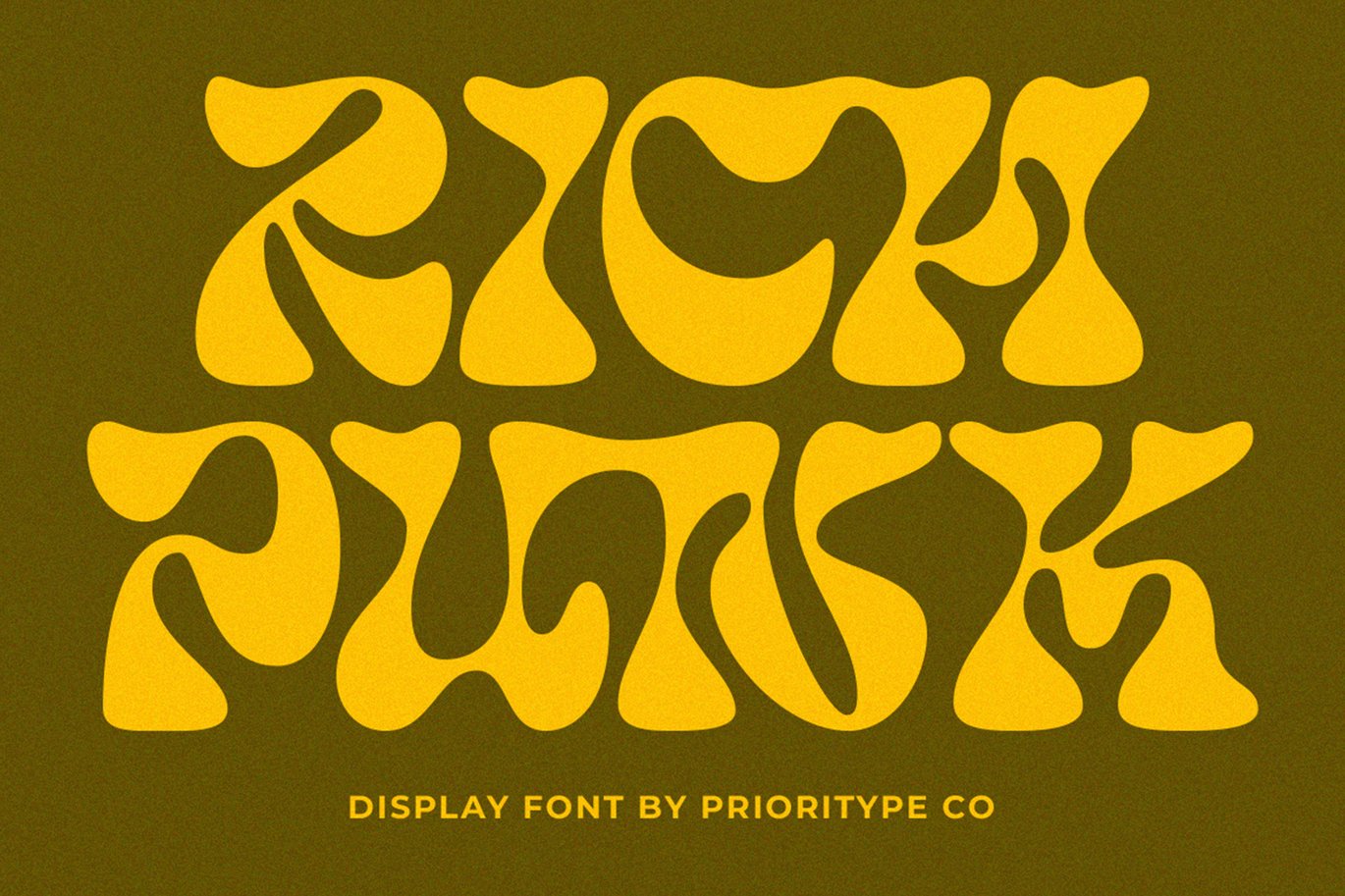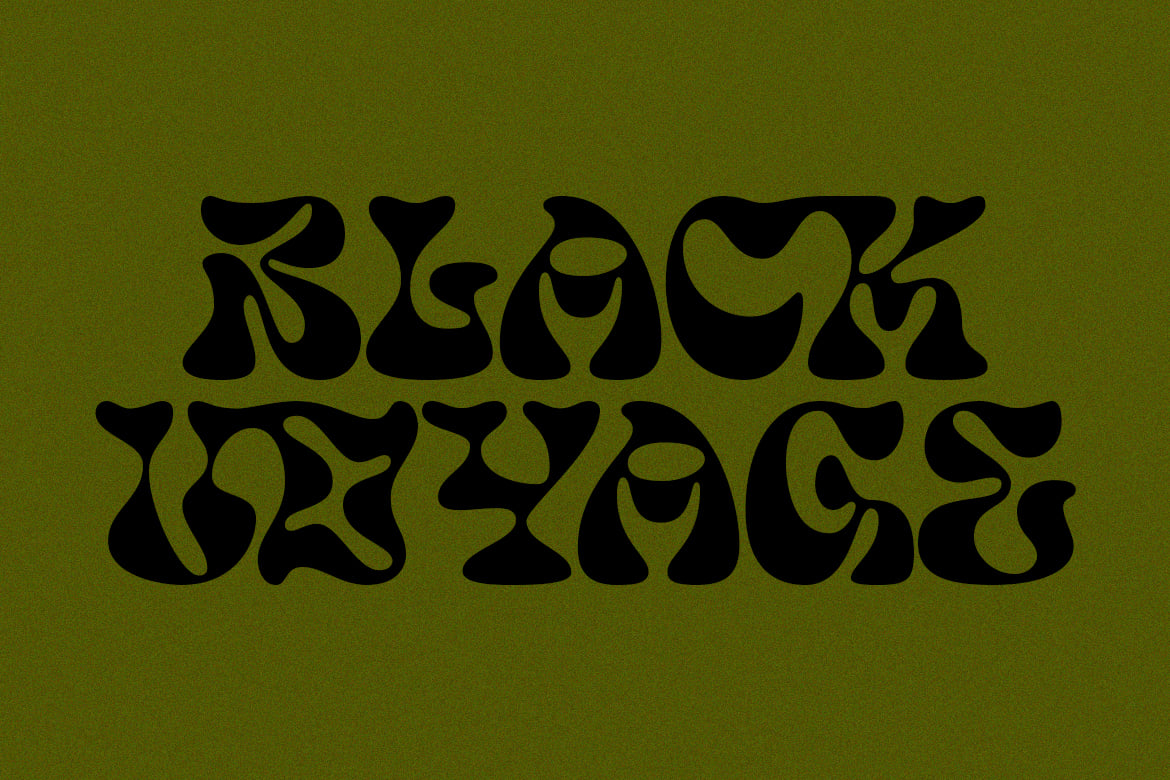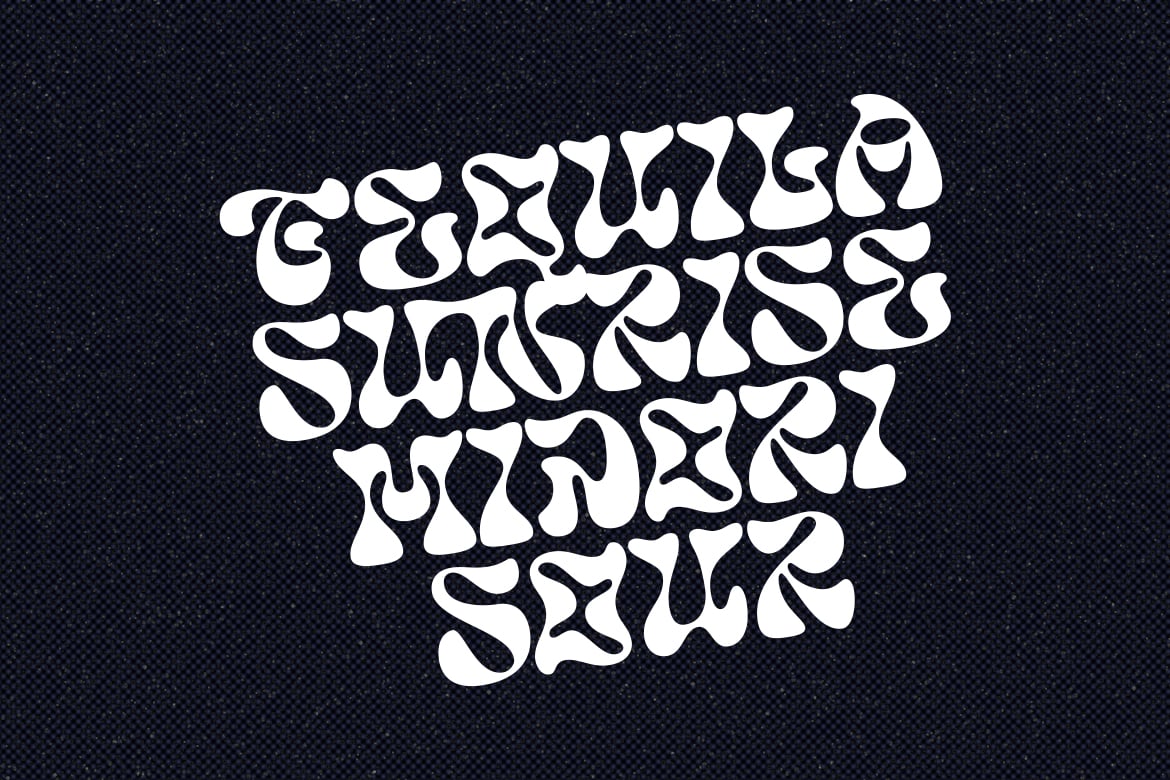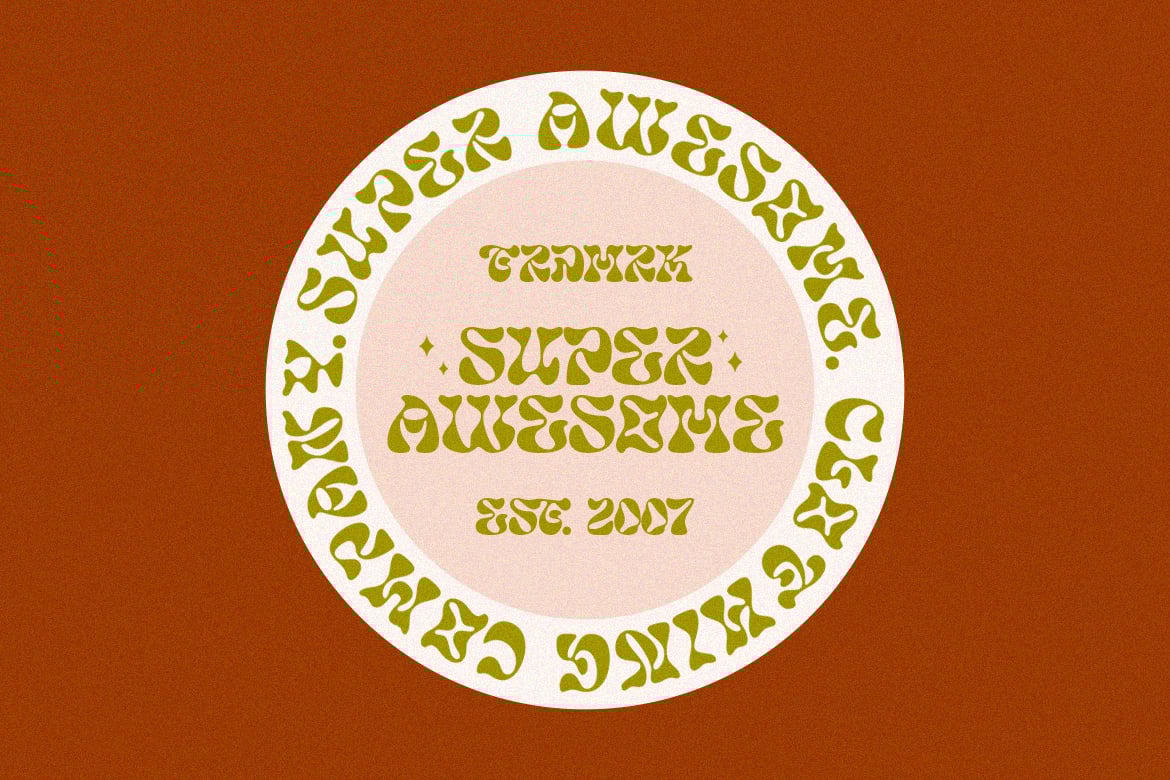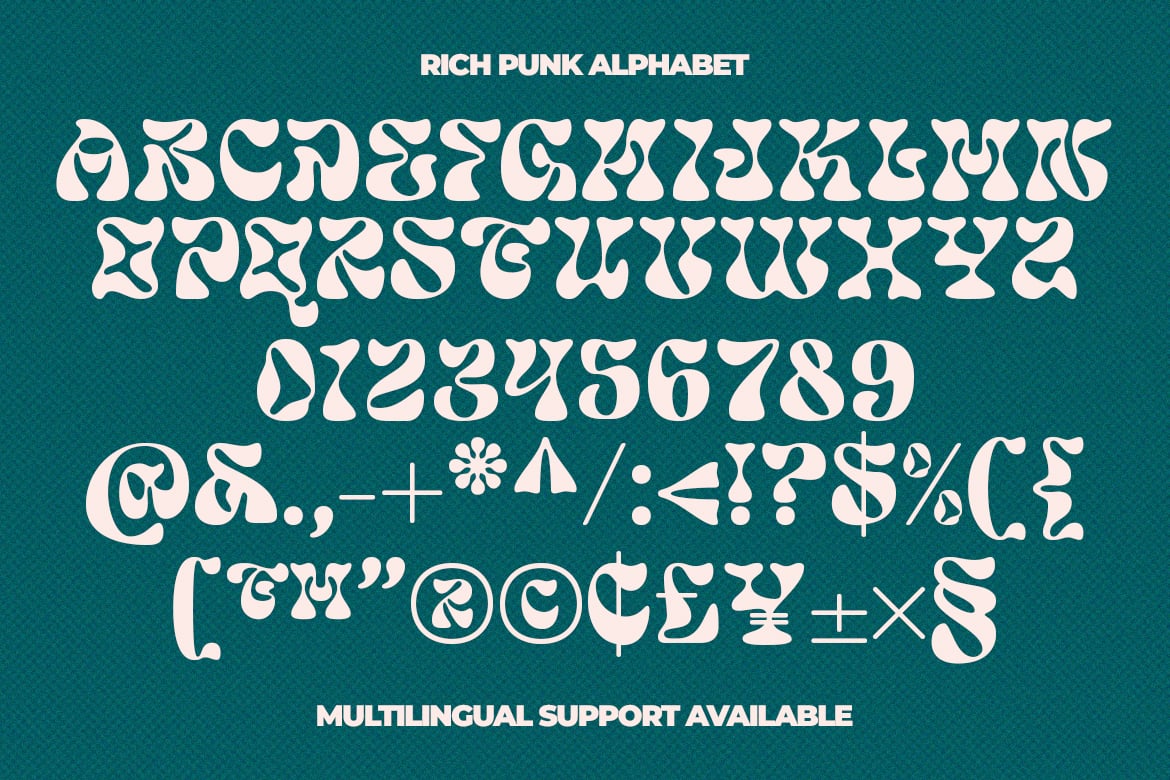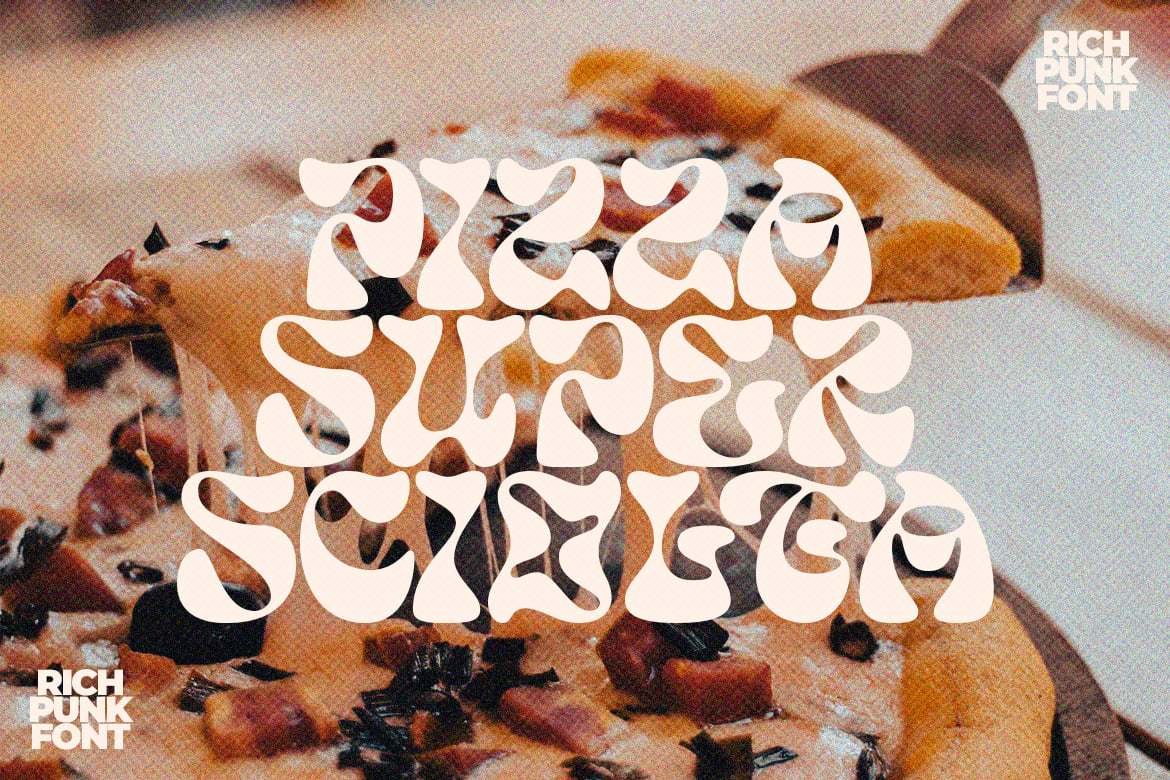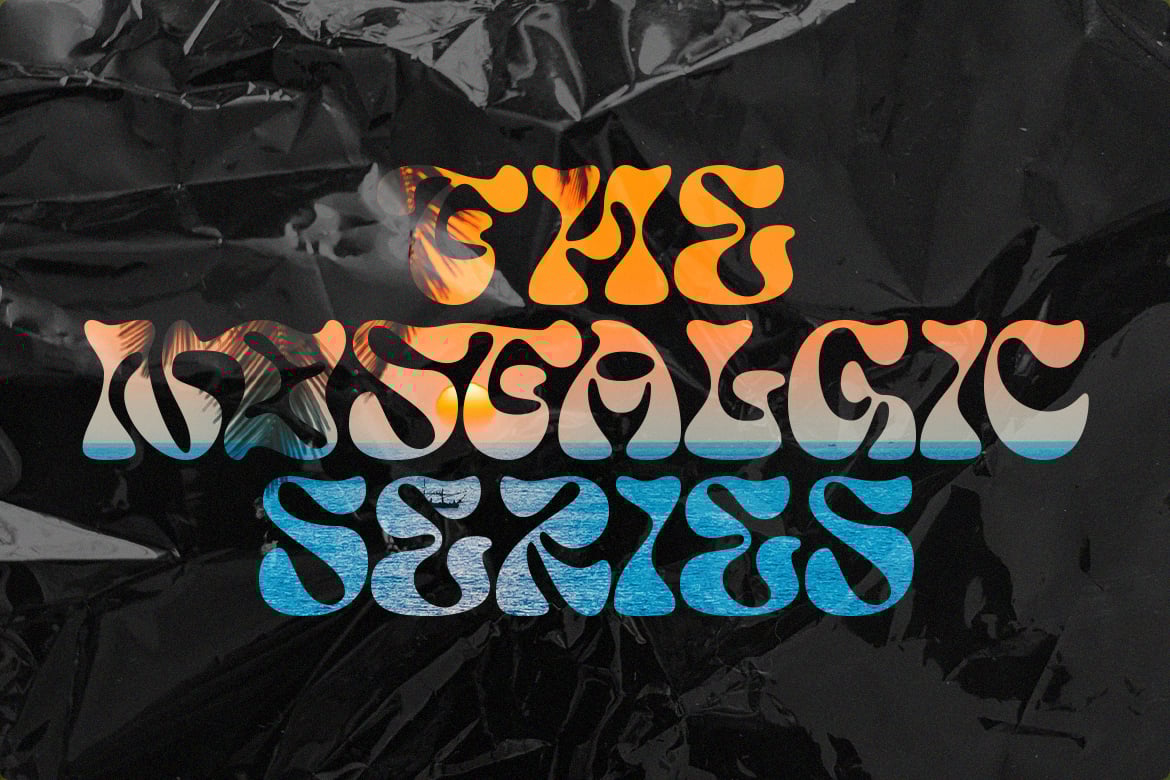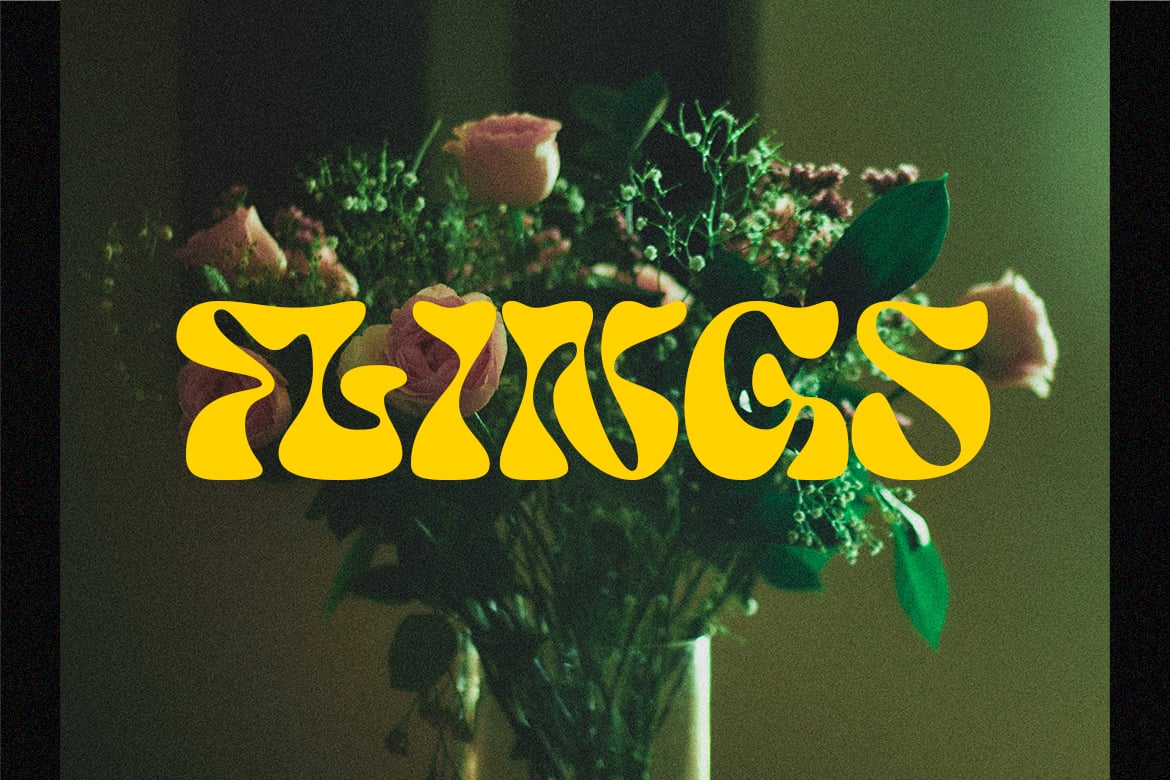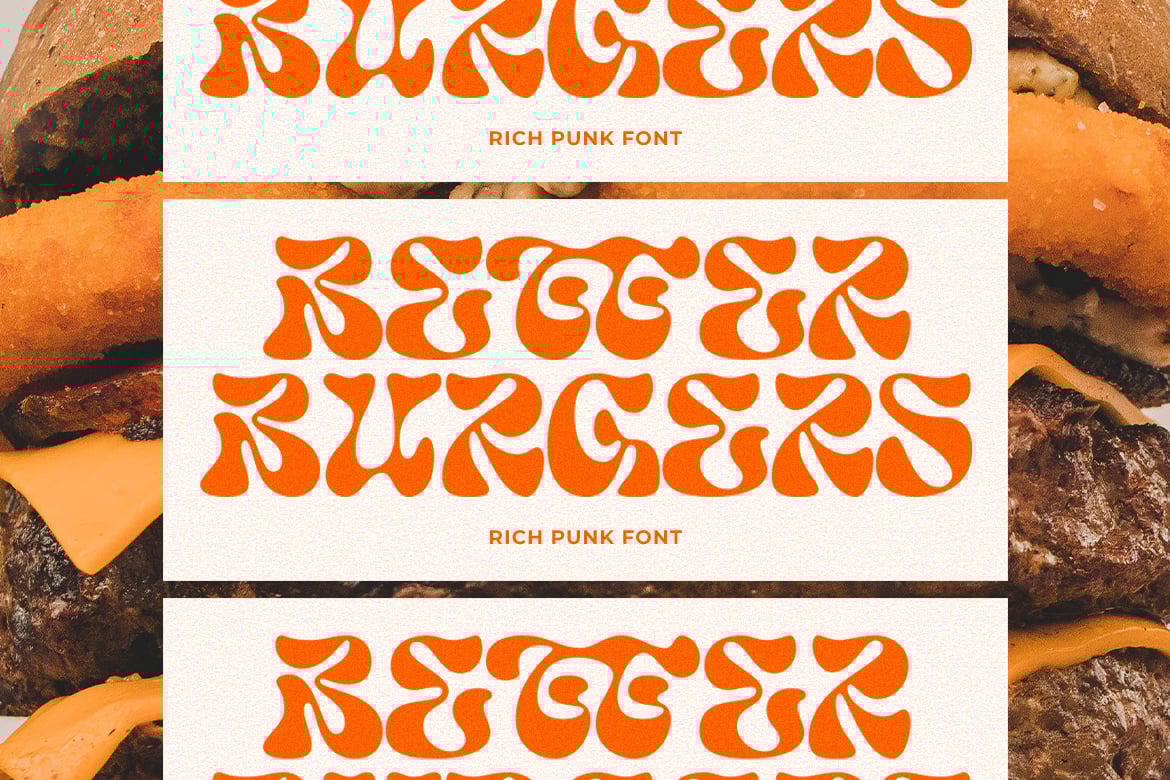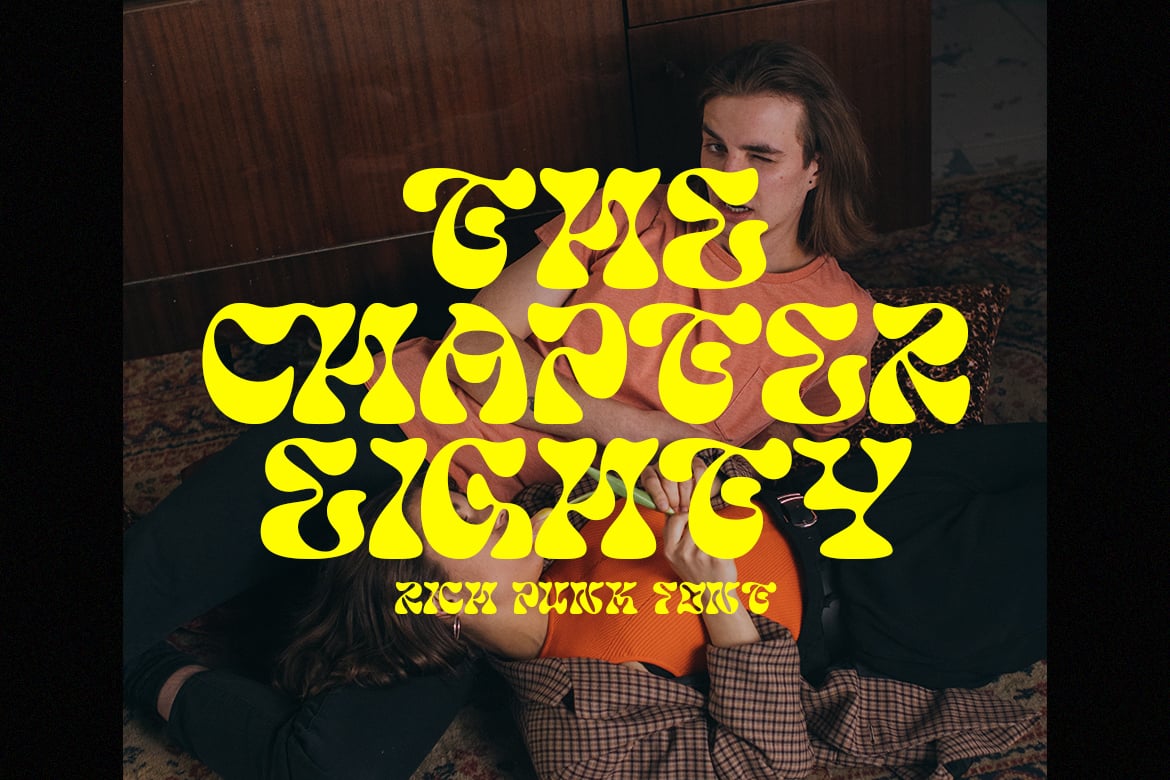
Rich Punk – Display Font
- Features: Uppercase, Lowercase, Numeral, Punctuation, Multilingual & Ligatures.
- Multilingual contained: Afrikaans, Albanian, Asu, Basque, Bemba, Bena, Breton, Catalan, Chiga, Cornish, Danish, Dutch, English, Estonian, Filipino, Finnish, French, Friulian, Galician, German, Gusii, Indonesian, Irish, Italian, Kabuverdianu, Kalenjin, Kinyarwanda, Luo, Luxembourgish, Luyia, Machame, Makhuwa-Meetto, Makonde, Malagasy, Manx, Morisyen, North Ndebele, Norwegian Bokmål, Norwegian Nynorsk, Nyankole, Oromo, Portuguese, Quechua, Romansh, Rombo, Rundi, Rwa, Samburu, Sango, Sangu, Scottish Gaelic, Sena, Shambala, Shona, Soga, Somali, Spanish, Swahili, Swedish, Swiss German, Taita, Teso, Uzbek (Latin), Volapük, Vunjo, Zulu.